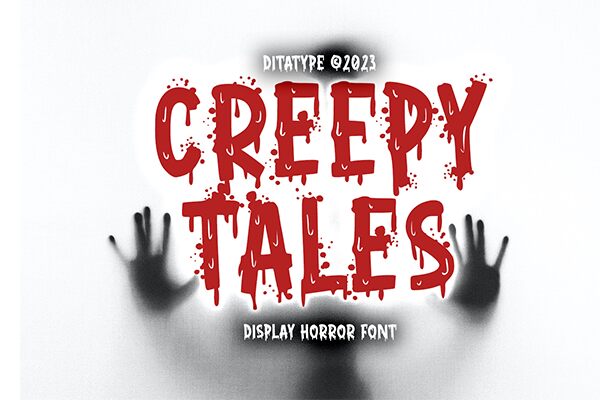
Creepy Tales font by Ditatype is a scary display font that brings spine-chilling vibes to your projects. Its grunge, horror-themed style features a distressed appearance and dripping effect that echoes ghost stories from beyond the grave. The spooky aesthetic of this condensed font leaves shivers down the spine thanks to every type asset featured.